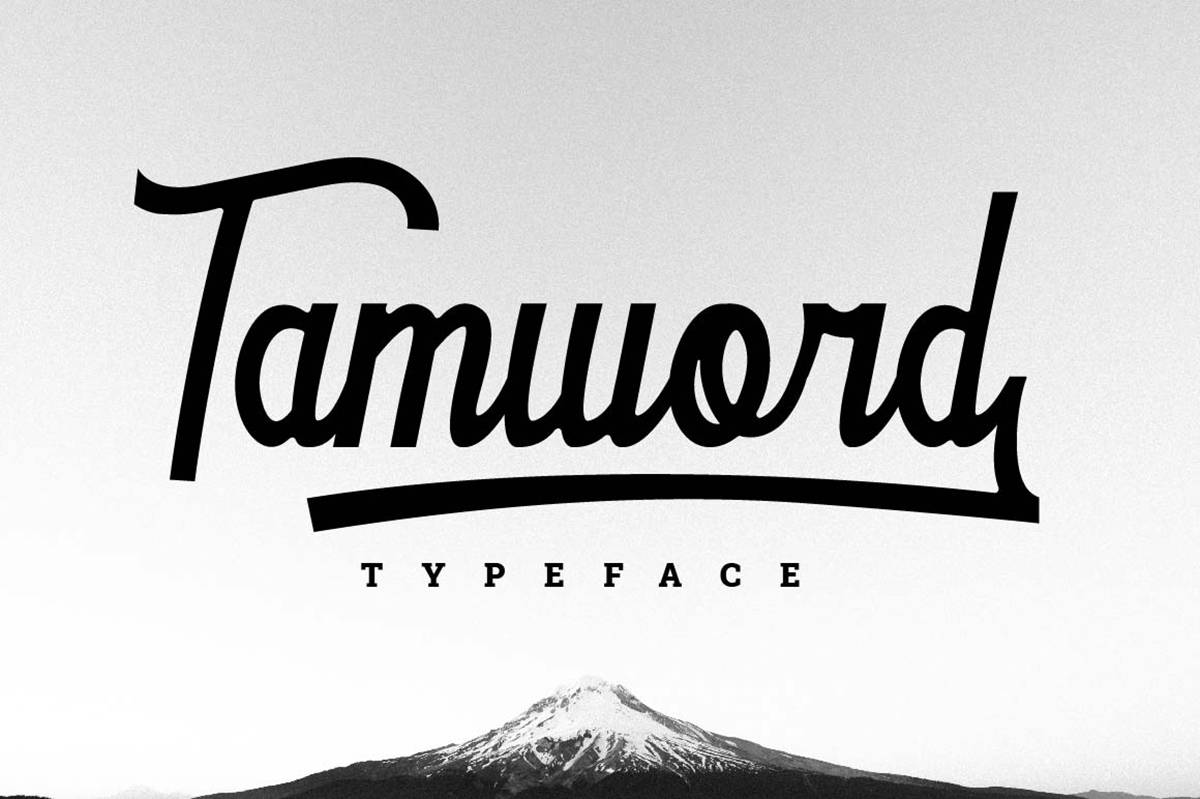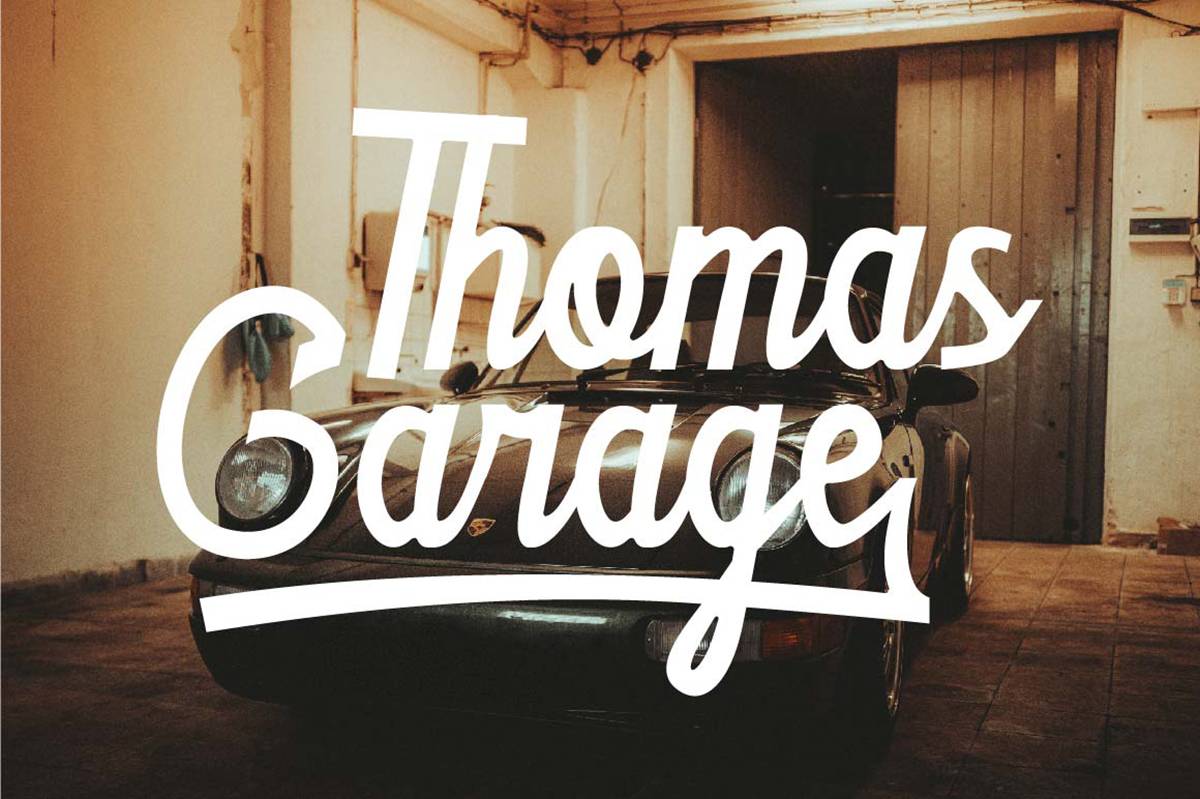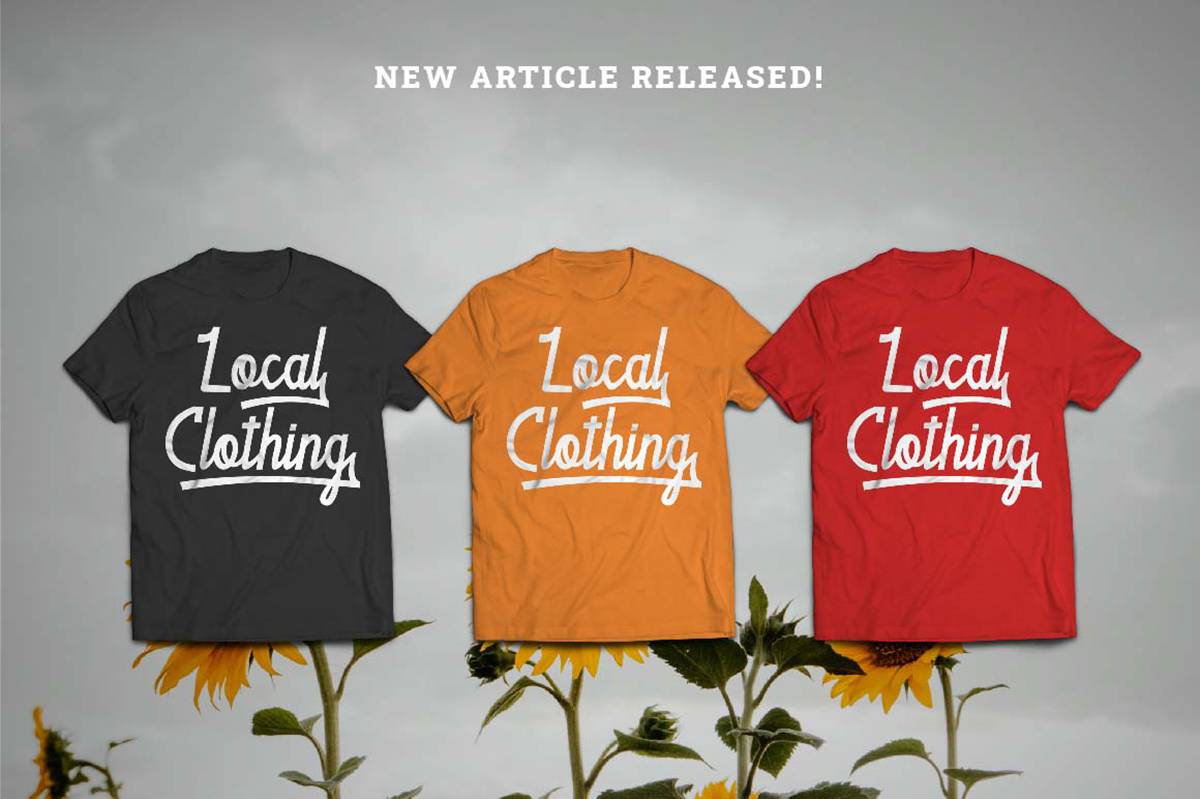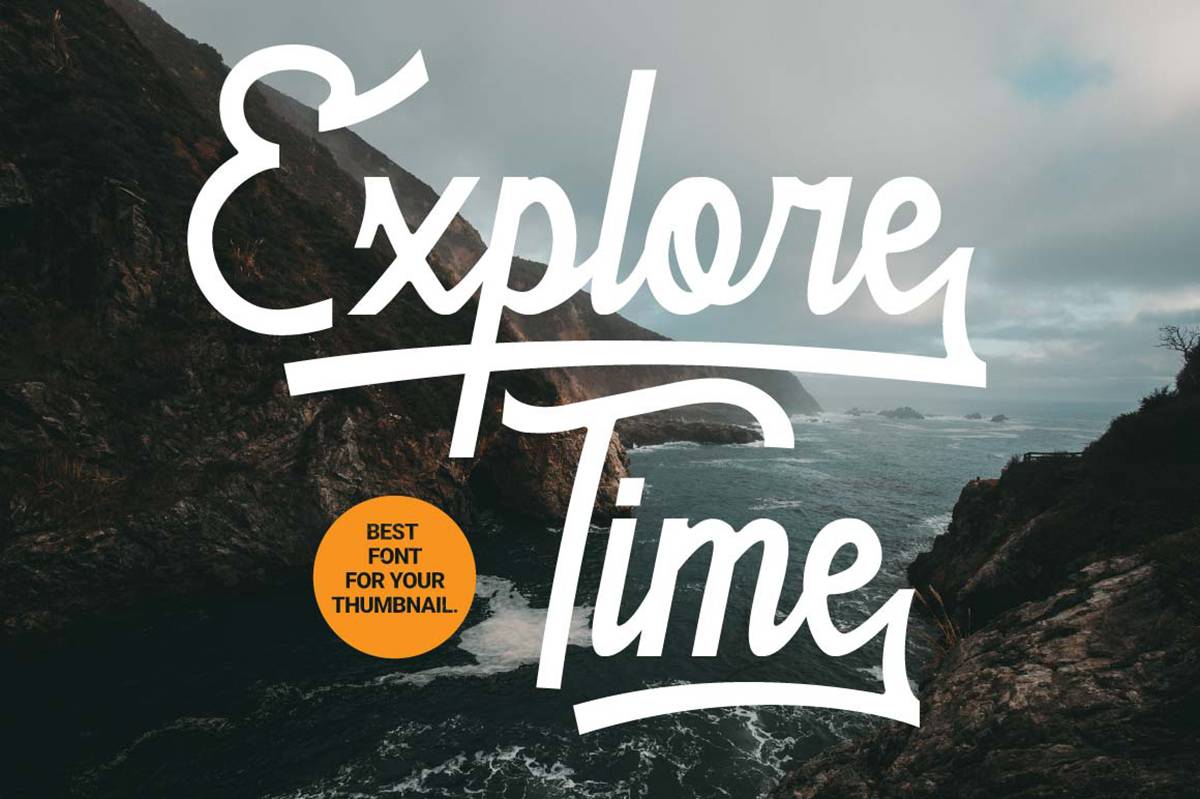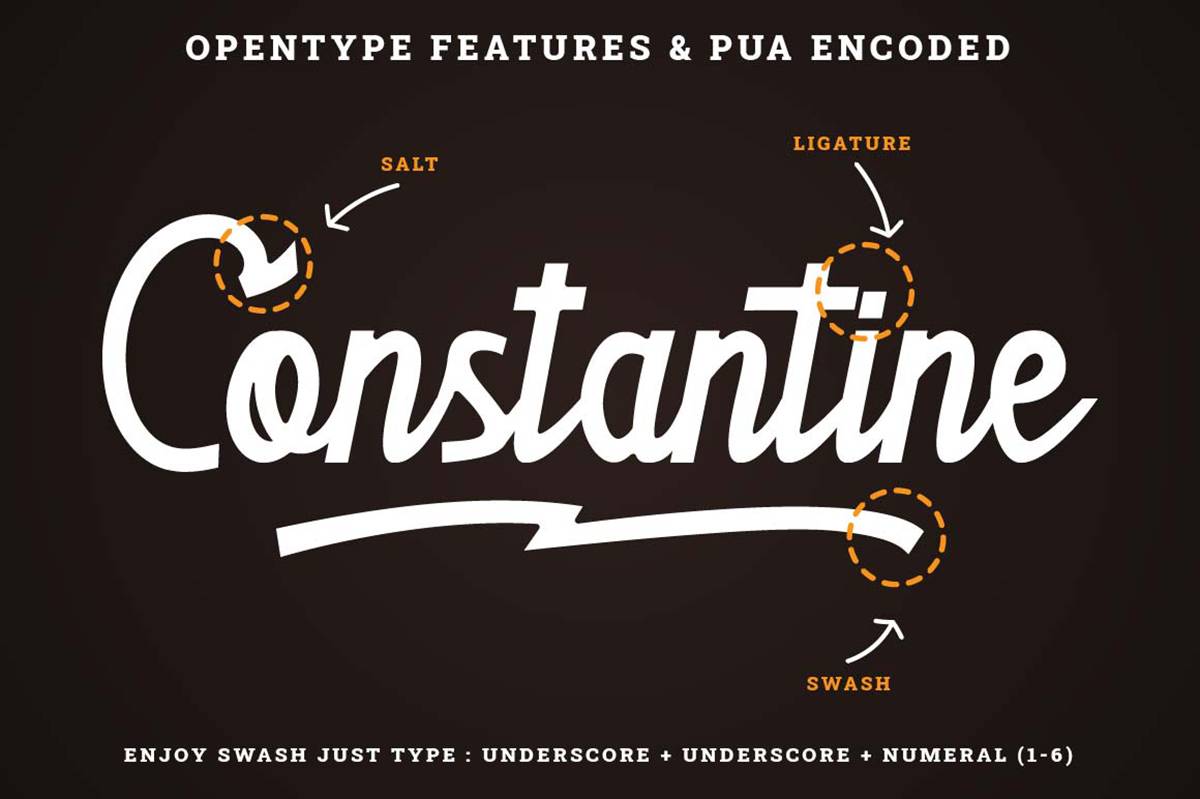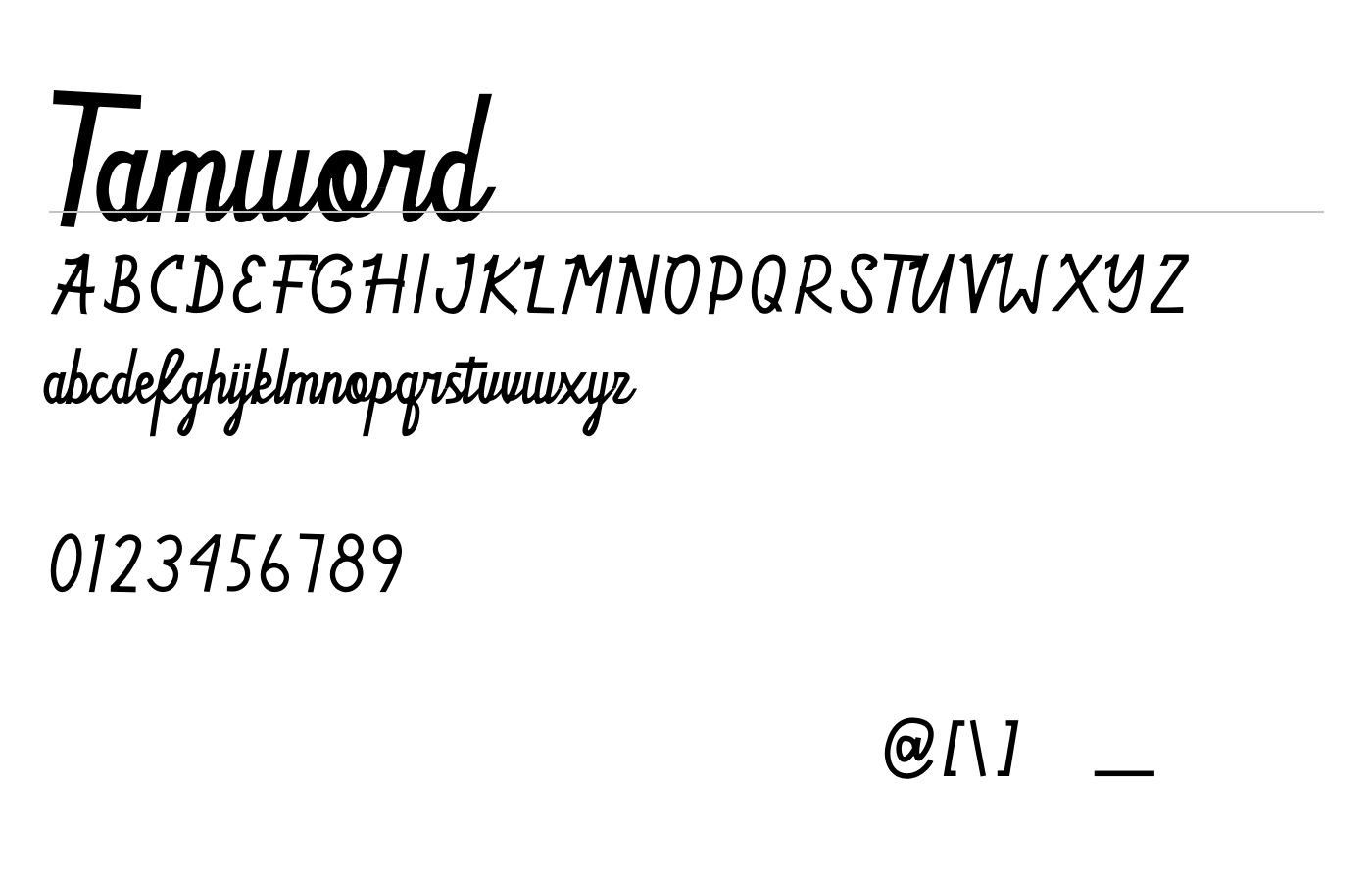
Tamword is a sleek, semi-connected script font with a distinctive vintage flair, featuring a moderate weight and narrow width that gives it a refined, upright posture. Its elegant, slightly playful letterforms and clean, angled strokes make it ideal for branding, editorial design, and stylish headlines where a touch of sophistication and personality is desired. This font works especially well in fashion and lifestyle contexts, lending an air of modern yet classic charm.
Tamword Font
About Tamword Font
| Designer | Prio Nurokhim Aji |